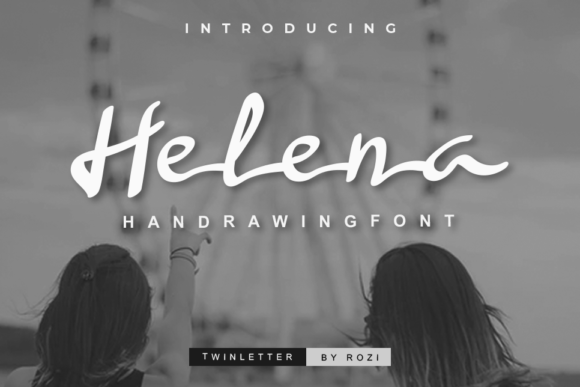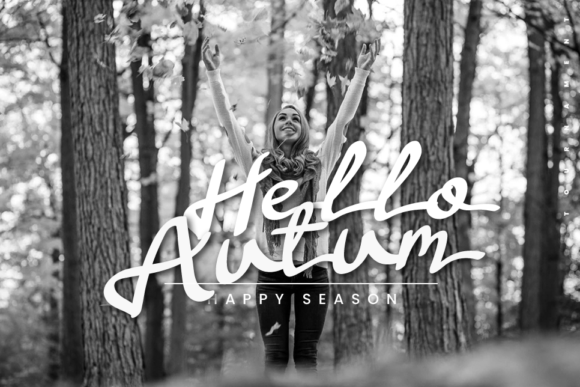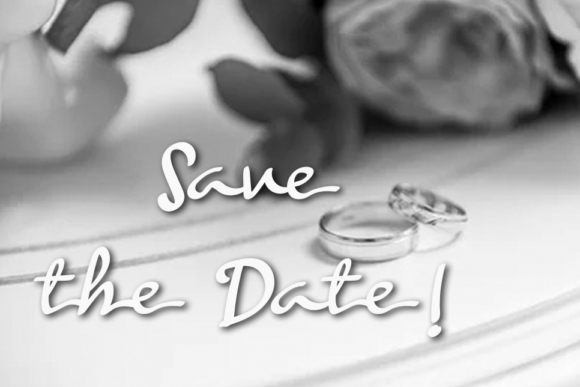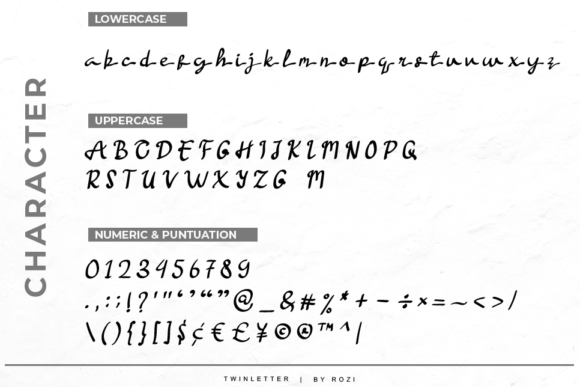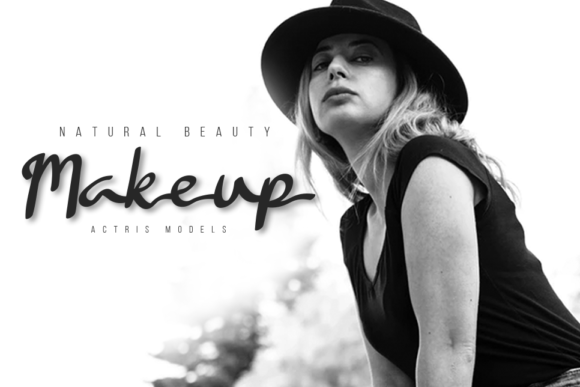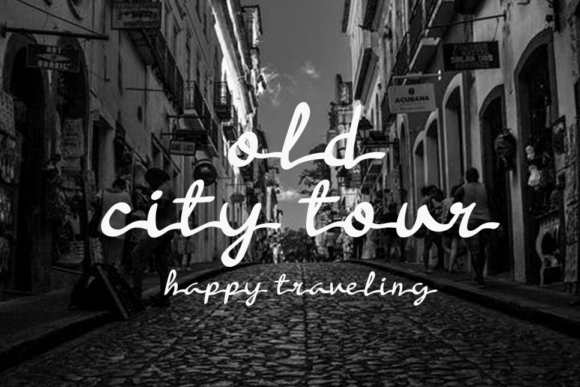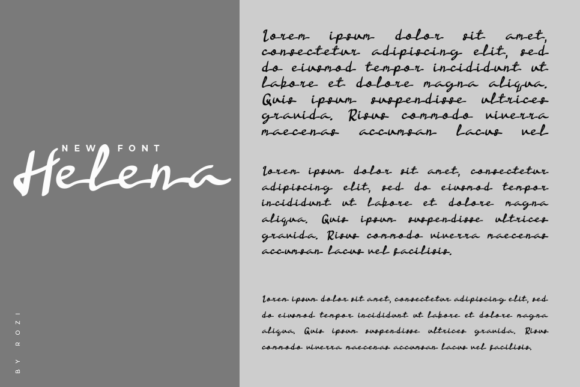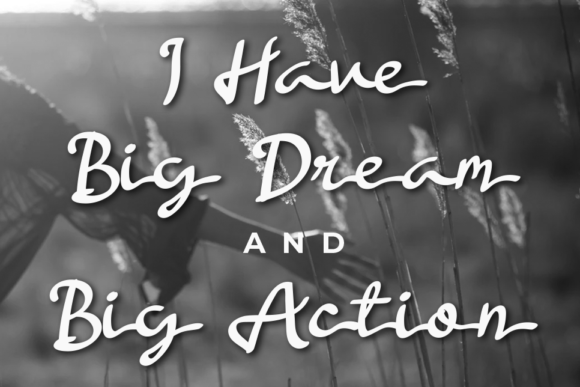
Helena Font
About Helena Font
Helena is a cute and casual handwritten font with an incredibly friendly feel. Whether you’re looking for fonts for Instagram or calligraphy scripts for DIY projects, this font will turn any creative idea into a true piece of art!